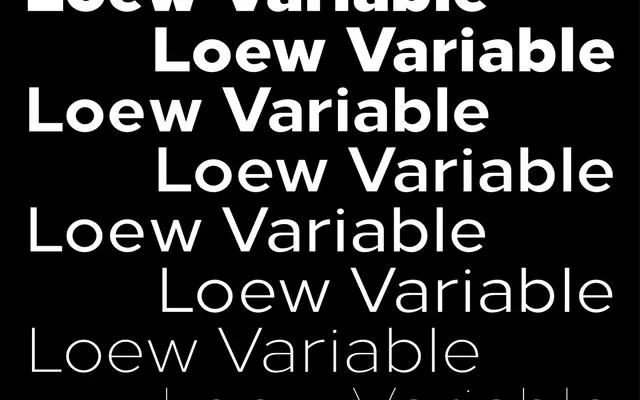
Loew Variable
The Northern Block · 2022
A geometric sans-serif variable font with condensed and extended width axes, rooted in early industrial design with subtle humanist corrections for readability.
Built from pure mechanical shapes with careful optical adjustments, Loew Variable covers the full weight range of the static Loew family in a single variable font file. Width variants from condensed to extended are included, making it workable across narrow text columns, body copy and large-scale print. The industrial influence keeps the forms disciplined without tipping into coldness.
A geometric sans-serif with circular, mechanical forms drawn from early industrial design, with humanist corrections applied to improve legibility at small sizes.